The ultimate wedding cursive font celebrates flexible strokes, dynamic high contrast, and graceful swashes. In addition to that, the weight should remain balanced so that the readability will be maintained. Our fonts possess those qualities and originality to support you in making the most romantic and elegant wedding designs.
- Cursive fonts are defined by free-flowing strokes, dynamic contrast, and chic swashes.
- To ensure clarity, extreme thickness should be avoided.
21 Gorgeous Cursive Fonts for Your Ideal Wedding Designs
Fussel, an experienced graphic designer in Manchester, implies the romantic and formal emotions script fonts, or cursive fonts, exude; some modern versions even evoke a more youthful aura that may describe your tie-the-knot moment well.
1. Whispered Trails – Signature Font
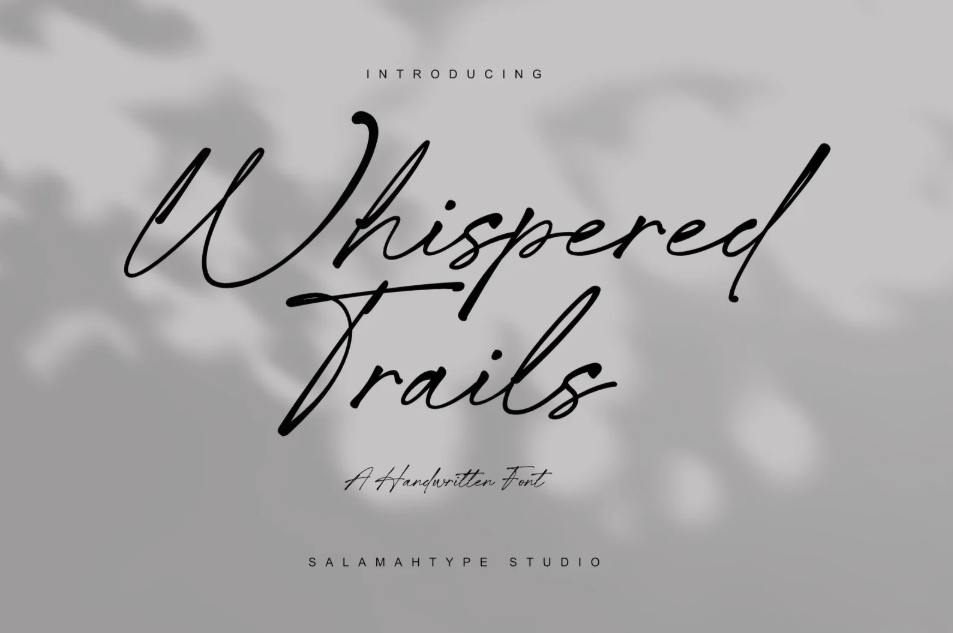
The impeccable balance of Whispered Trails’ boldness still promotes readability, and the fluid strokes imitate the formal yet unshackled aura of a penman’s signature. Whisper the romantic invitation to your guests with the font’s alternates.
2. Wings Signature – Elegant Script
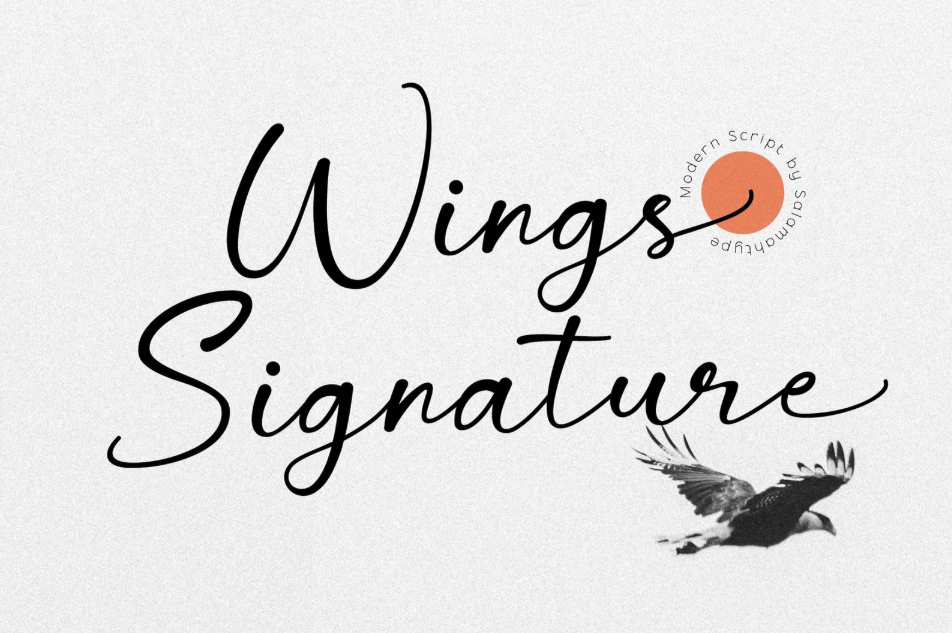
The sweeping strokes and relaxed spacing reflect the confident freedom of soaring swallows. Incorporate the alternates into your wedding invitations, signage, or digital wedding content to achieve a more untamed, romantic aesthetic.
3. Royal Scarletty Script
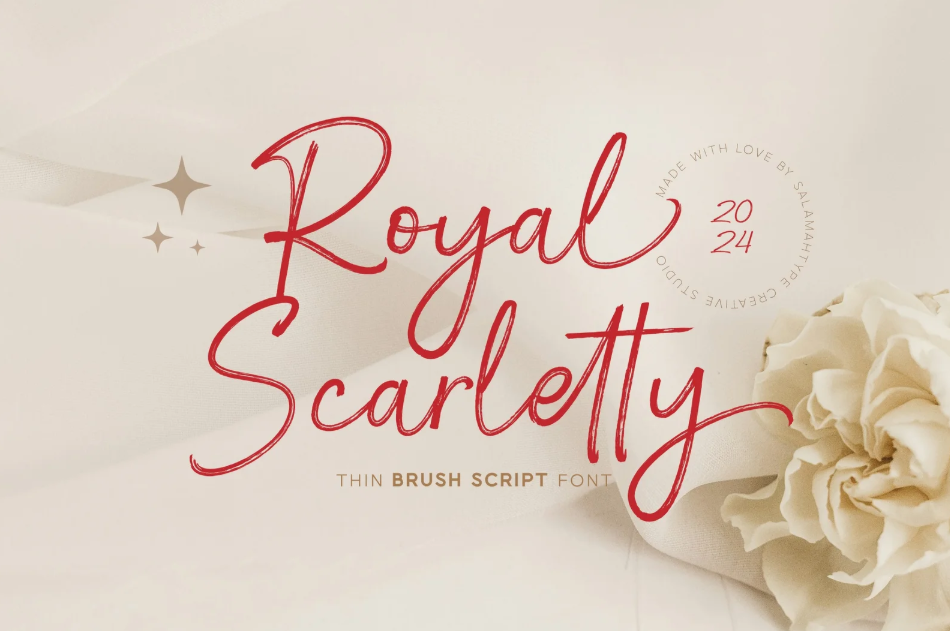
The impressive precision of Royal Scarletty’s rough strokes emphasizes the readability, while the moderate swashes are as poised as noblewomen. Deliver your wedding invitations with a touch of grandeur from the font’s elegant ligatures.
4. Whitney
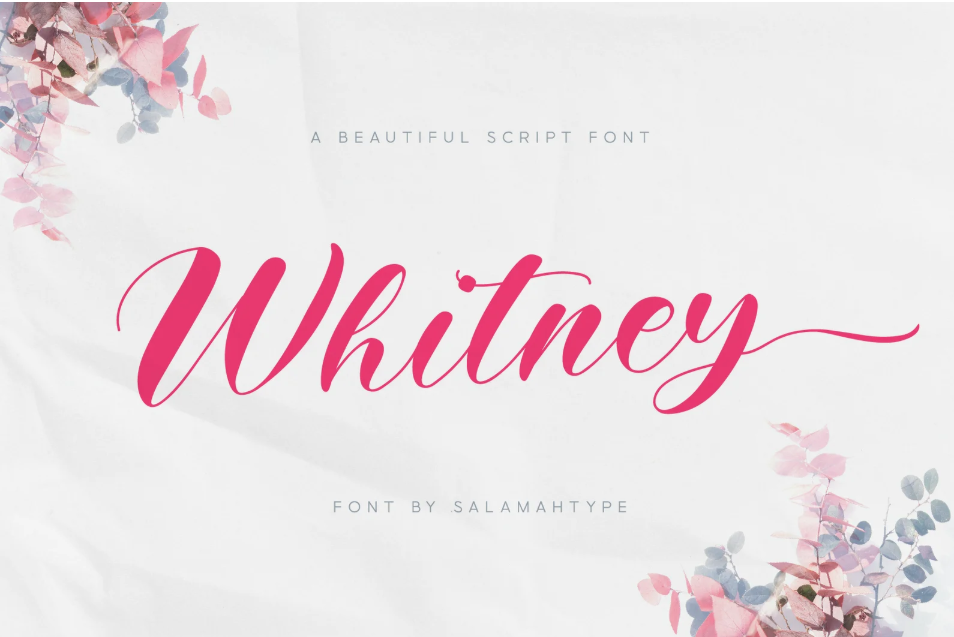
The pairing between bold descenders and lightweight ascenders of Whitney is undoubtedly tasteful. The slim and long swashes play a big part in the formal wedding invitations.
5. Rachel Karlie
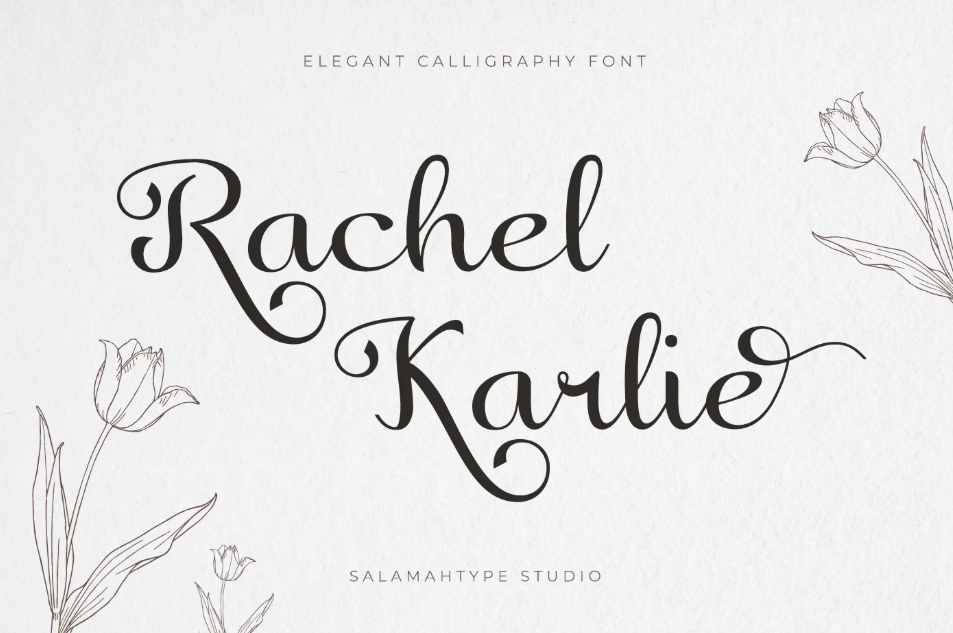
The supple strokes and balanced weight of Rachel Kalie are as enchanting as receiving the most fragrant bouquet of rose flowers on your special moment.
6. Royalina Script
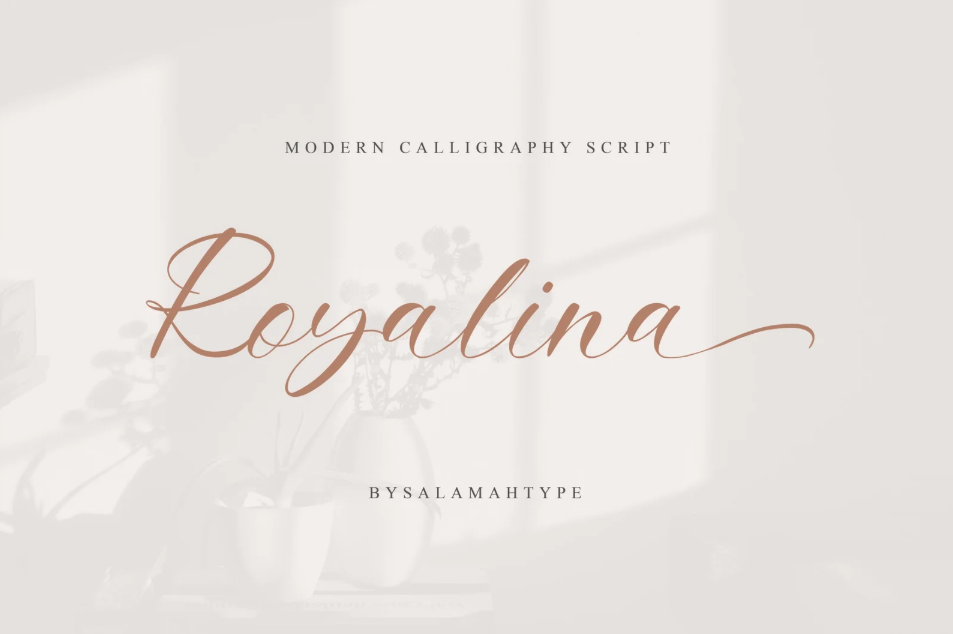
The unwavering steadiness of Royalina’s strokes positions the font as a distinguished wedding cursive font. Place the ligatures in your invitation titles for a more exceptional look.
7. Willy Schaden Free Font
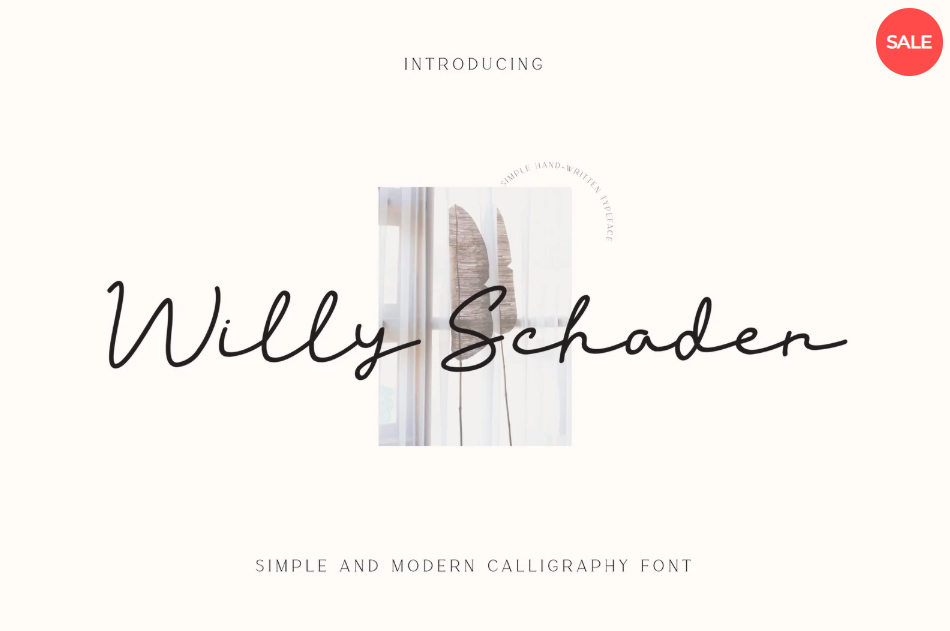
The faultless consistency of weight and the free-spirited tracking differentiate Willy Schaden from other fonts. They also contribute to the font’s undeniable legibility.
8. Bugisnia Signature Font
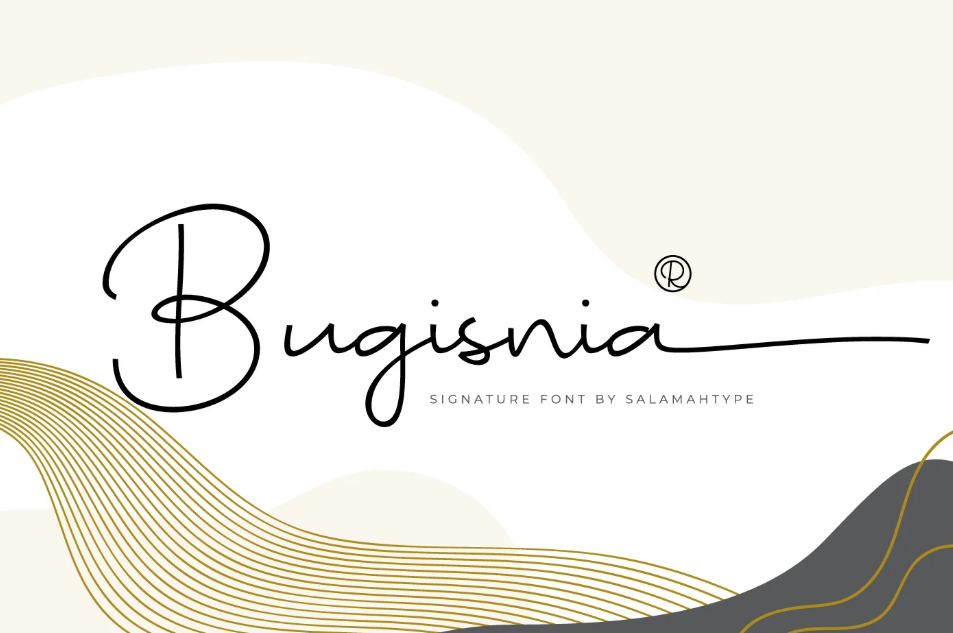
The lengthy swashes and specific letter shapes of Bugisnia are harmonious with the font’s steadfast boldness.
9. Black Raven
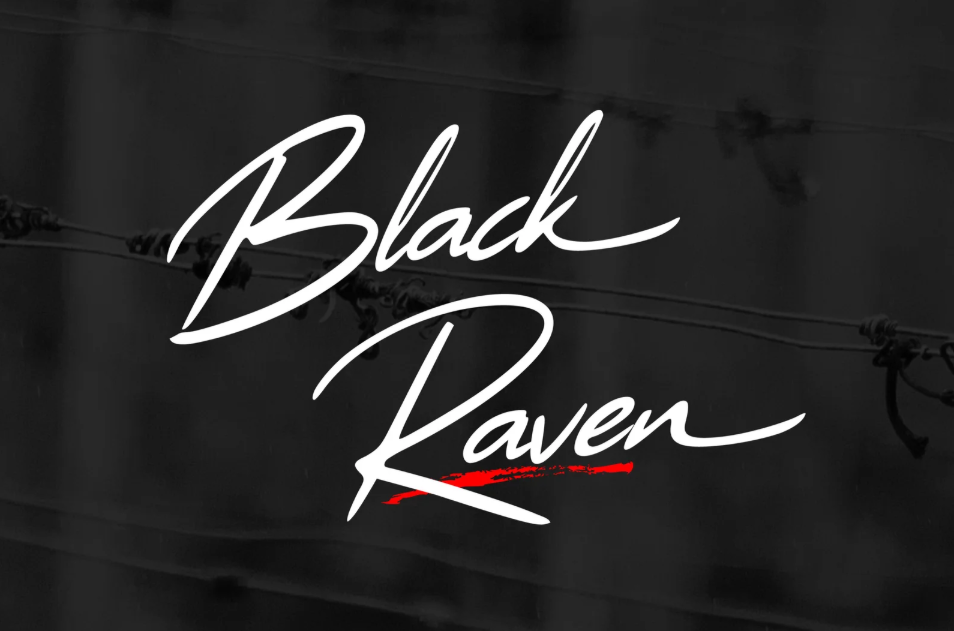
The awesomeness of Black Raven lies in its unbound and unembellished strokes. Put ligatures and alternates on your wedding invitations for more unique designs.
10. Riday Parcia – Modern Script Font
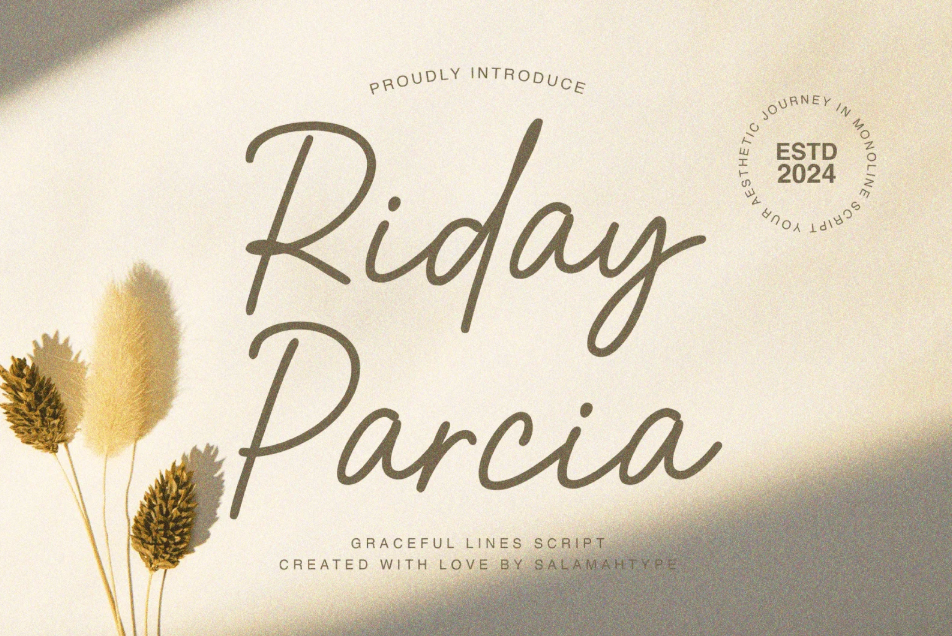
The discerning letterforms of Riday Parcia speak for the font’s limitless aesthetic. Moreover, balanced boldness ensures the success of your message delivery.
11. Ranchel Script
Ranchel demonstrates spectacular qualities as the flawless wedding cursive font through the font’s trendy letter shapes and thickness.
12. Bella Signature
The poised strokes and unfaltering thickness of Bella Signature are the irresistible charm. Sculpt the incredible alternates and distinctive ligatures on your headlines to add more authenticity.
13. Hanifah Salamah Script
The adaptable slimness and intricate letter shapes embrace nothing but enticing elegance that can reinforce the romantic appearance of your wedding invitations.
14. Peachy Lime – Retro Script Font
The noticeable boldness of Peachy Lime does not hinder the font’s legibility. Additionally, the phenomenal serifs and remarkable swashes can make your designs look more approachable.
15. Misty Grey – Minimalist Script
The slenderness of Misty Grey is as faint as a mesmerizing mist in picturesque valleys. Moreover, the font’s letter shapes are unusually addictive to see.
16. Holiday Maria – Cute Script Font
Holiday Maria exposes both elegance and friendliness through the font’s even boldness and cursive strokes that rank it as the wedding font of perfection.
17. Miss Angel Script Font
Miss Angel’s accuracy in the font’s thin and thick strokes illustrates the eventful moment of building a warm home with angelic little feet running about in the house.
18. Amichan Monoline Script
The elegance of Amichan derives from the font’s loyalty to constant lightweight. In addition to that, the letter shapes can bring out cuteness in your wedding invitations’ headlines.
More Options for Your Wedding Designs?
So, what font is the best cursive used for matchless wedding signs? The ideal wedding cursive font prefers the gracefulness of high-class contrast and luxurious embellishments. Yet, the elegance of your designs can still emerge even if the font has its flair or other styles.If none of the fonts above interest you, Salamah Type has an abundance of cursive wedding font collections that speak for you. Take the one that captures your attention and blend it with other styles of fonts to make the best design for your special night.